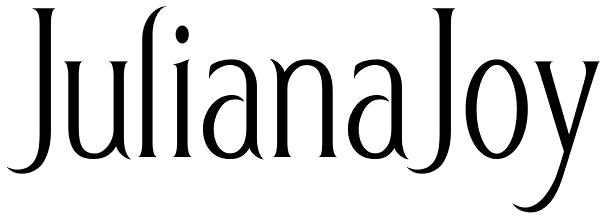
JulianaJoy
JulianaJoy is a condensed elegant sharp serif typeface for headline display and text use. Several alternate characters are included with this original font design.
JulianaJoy Font